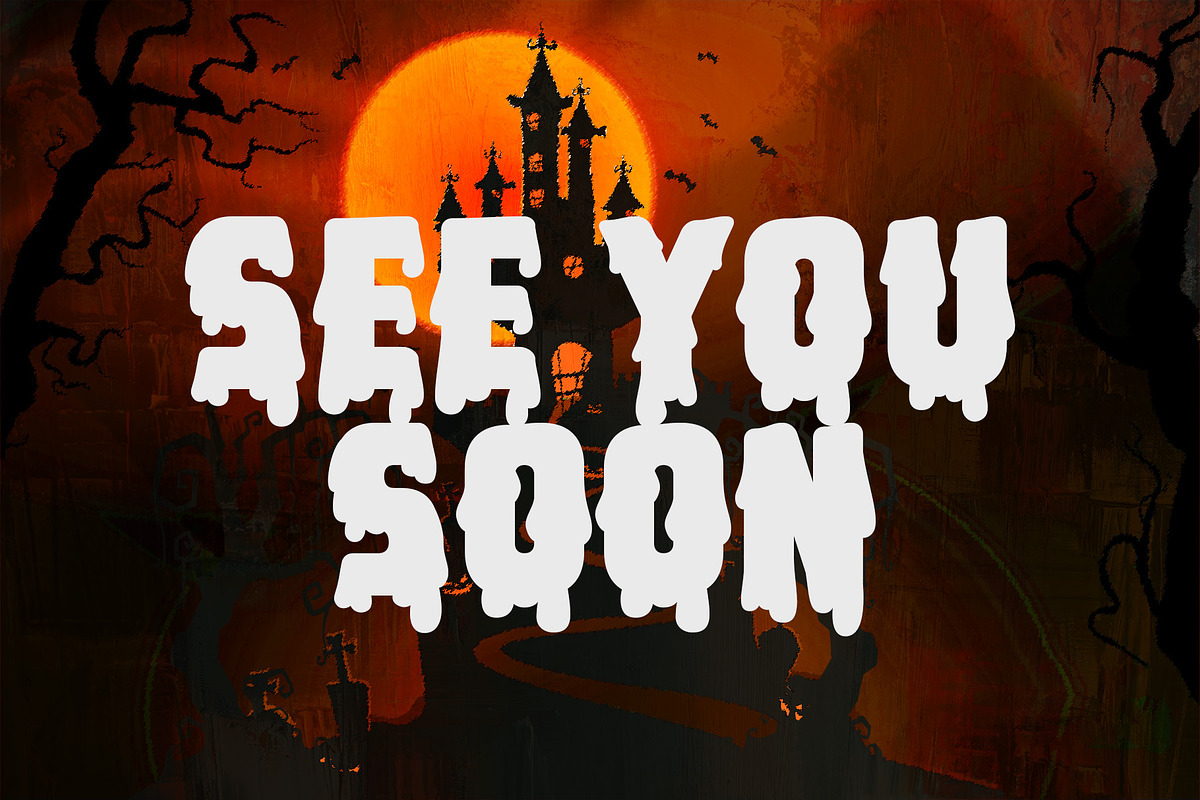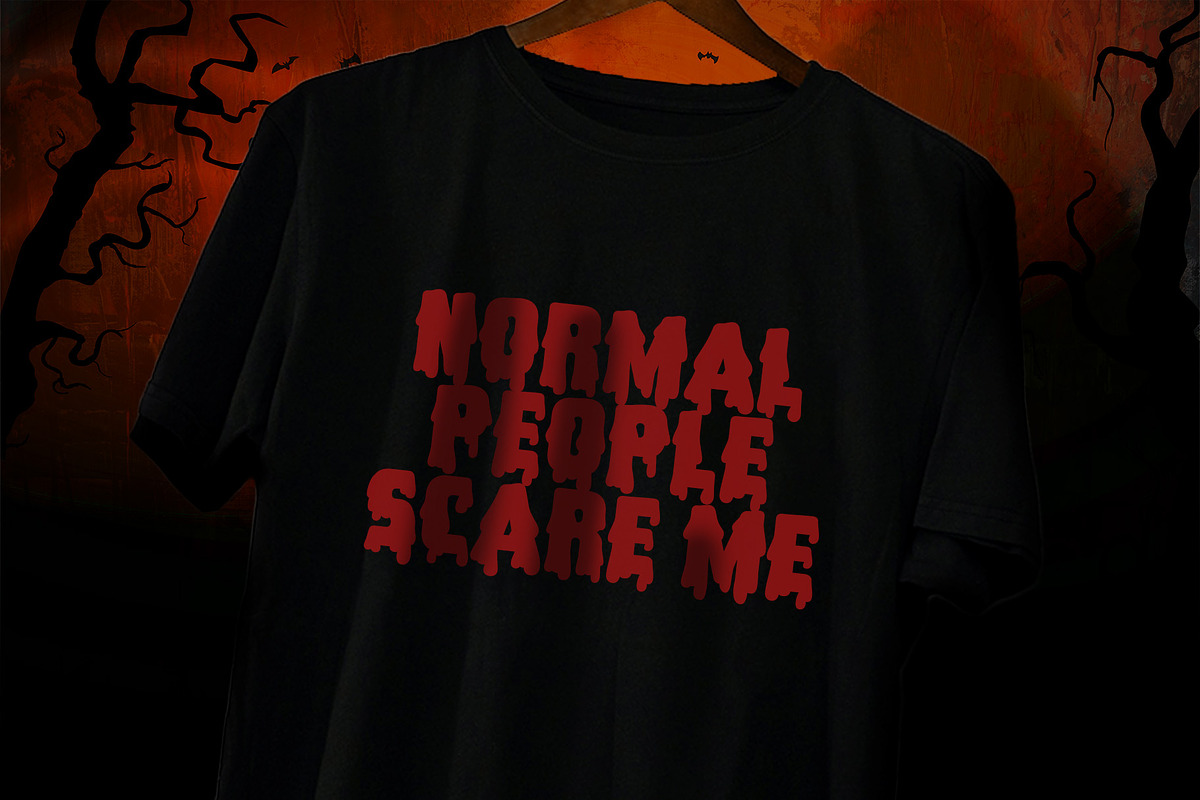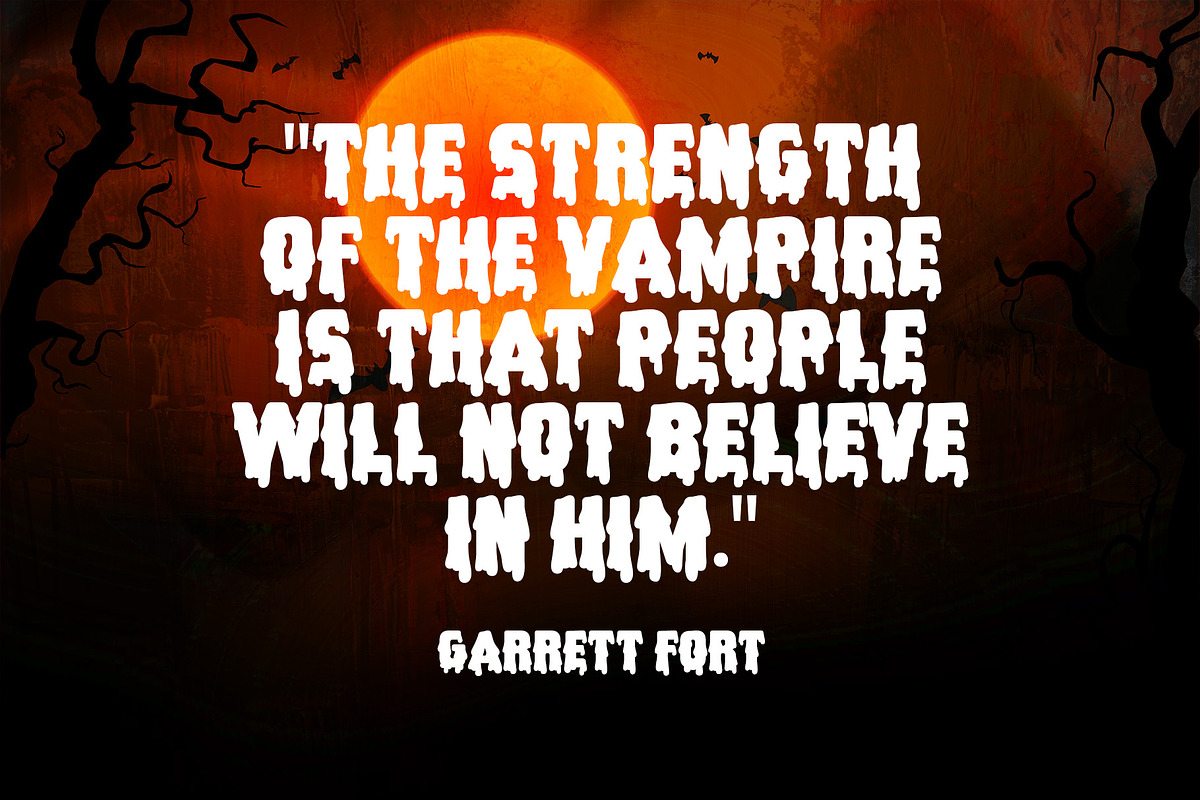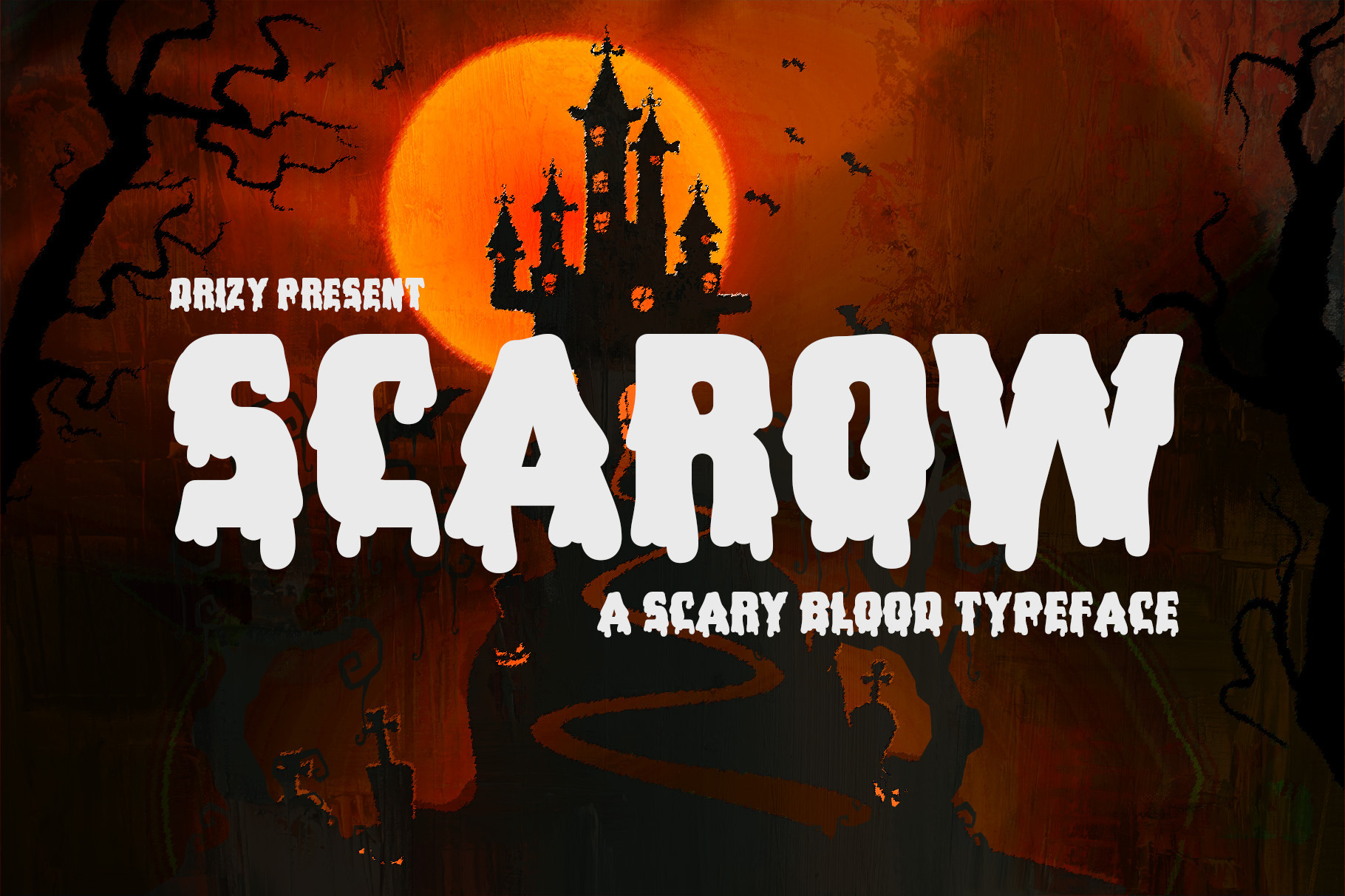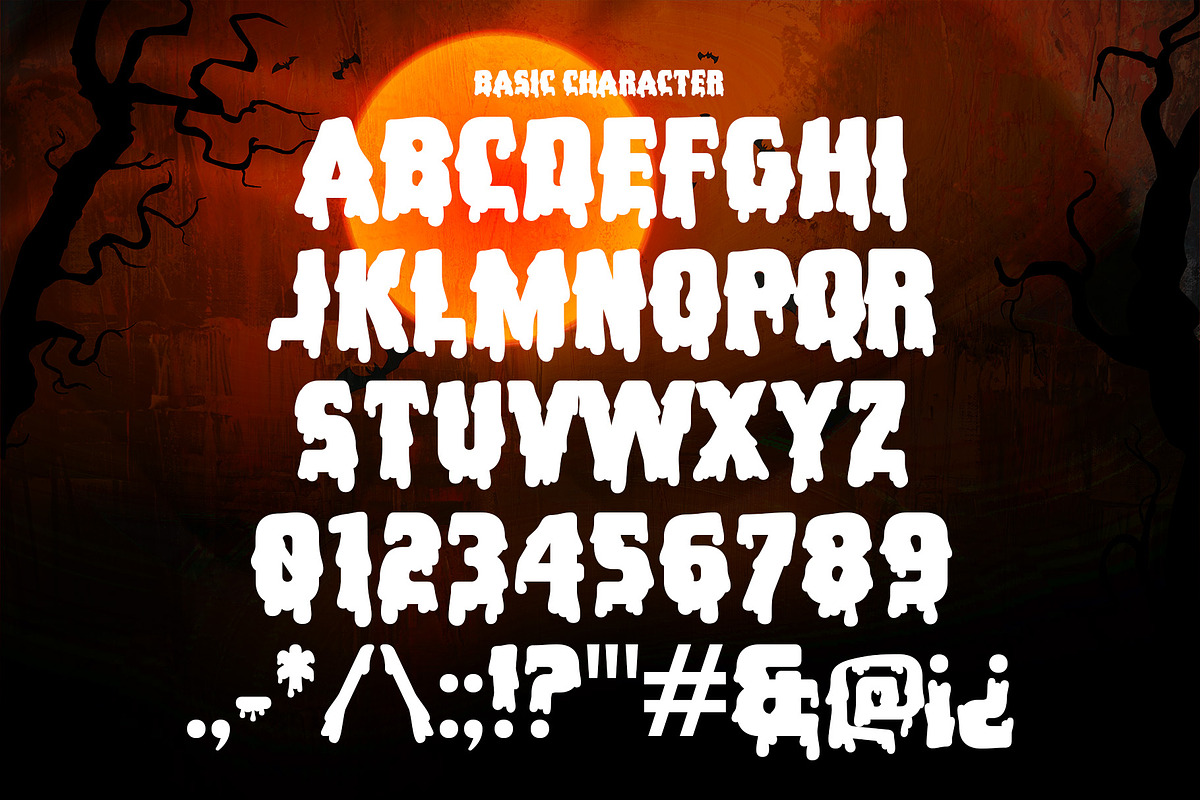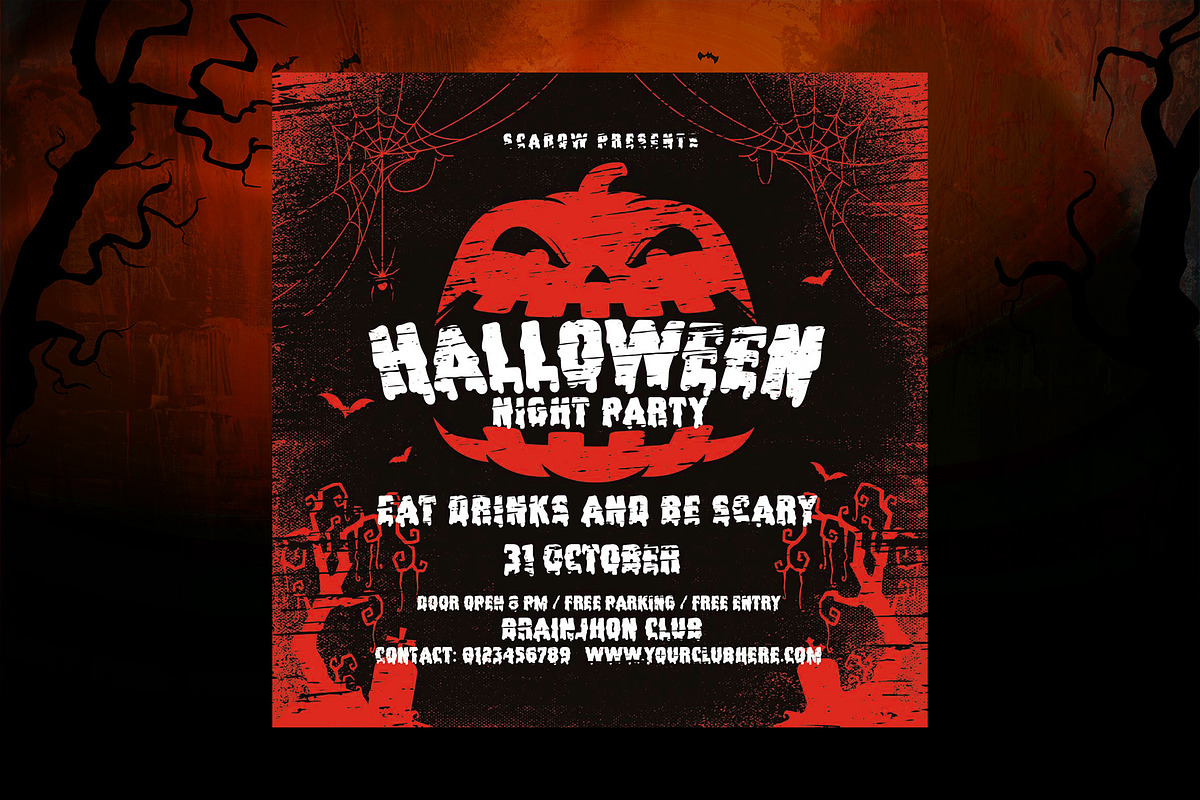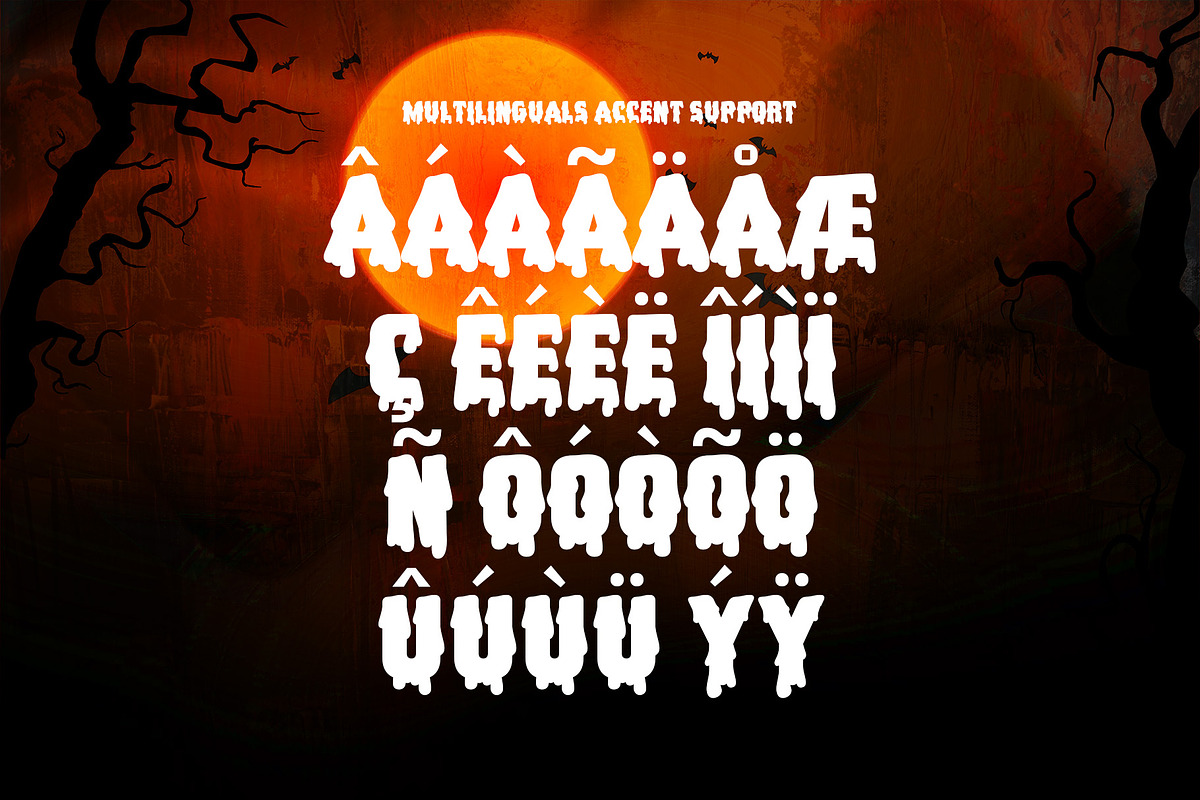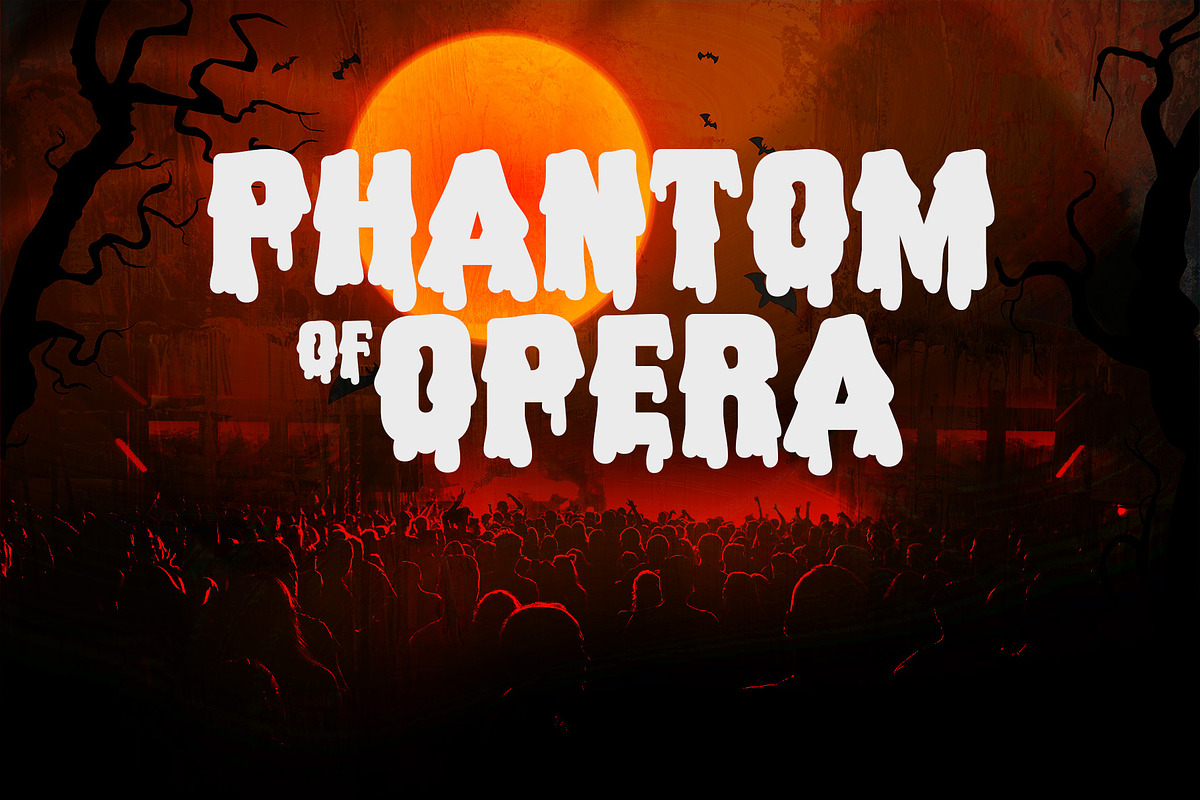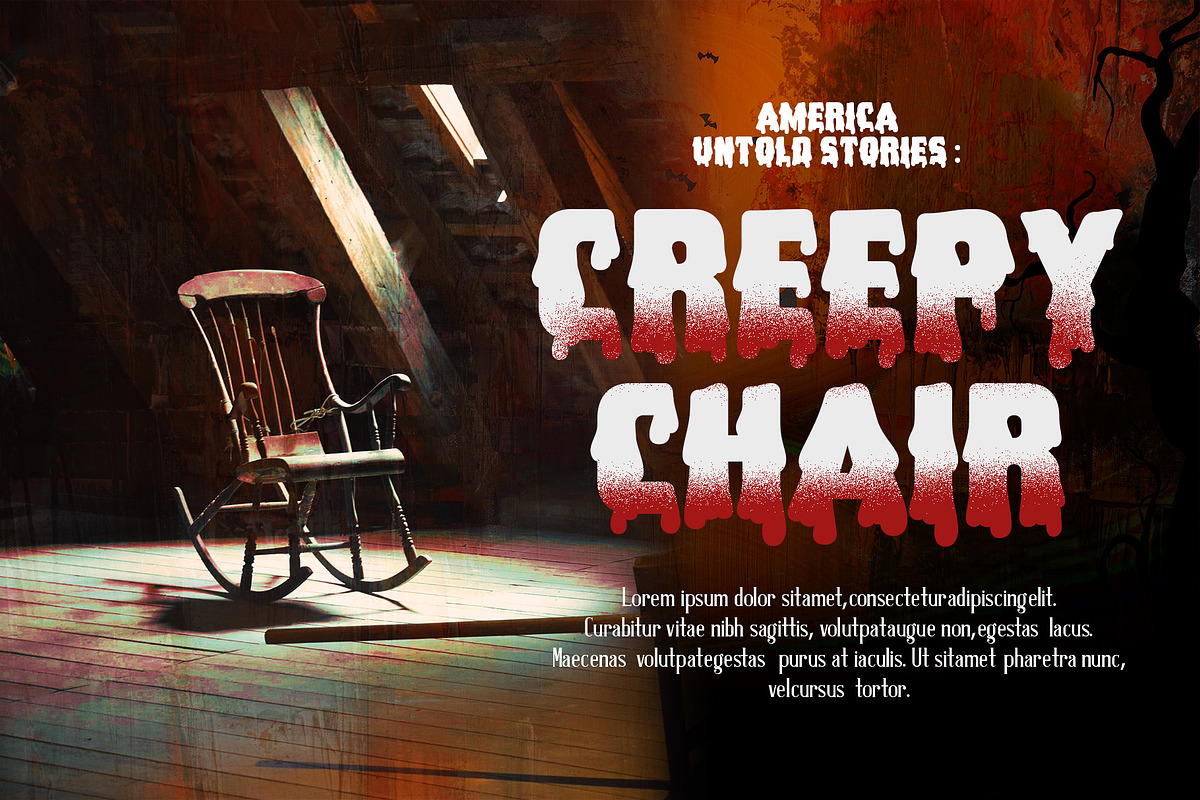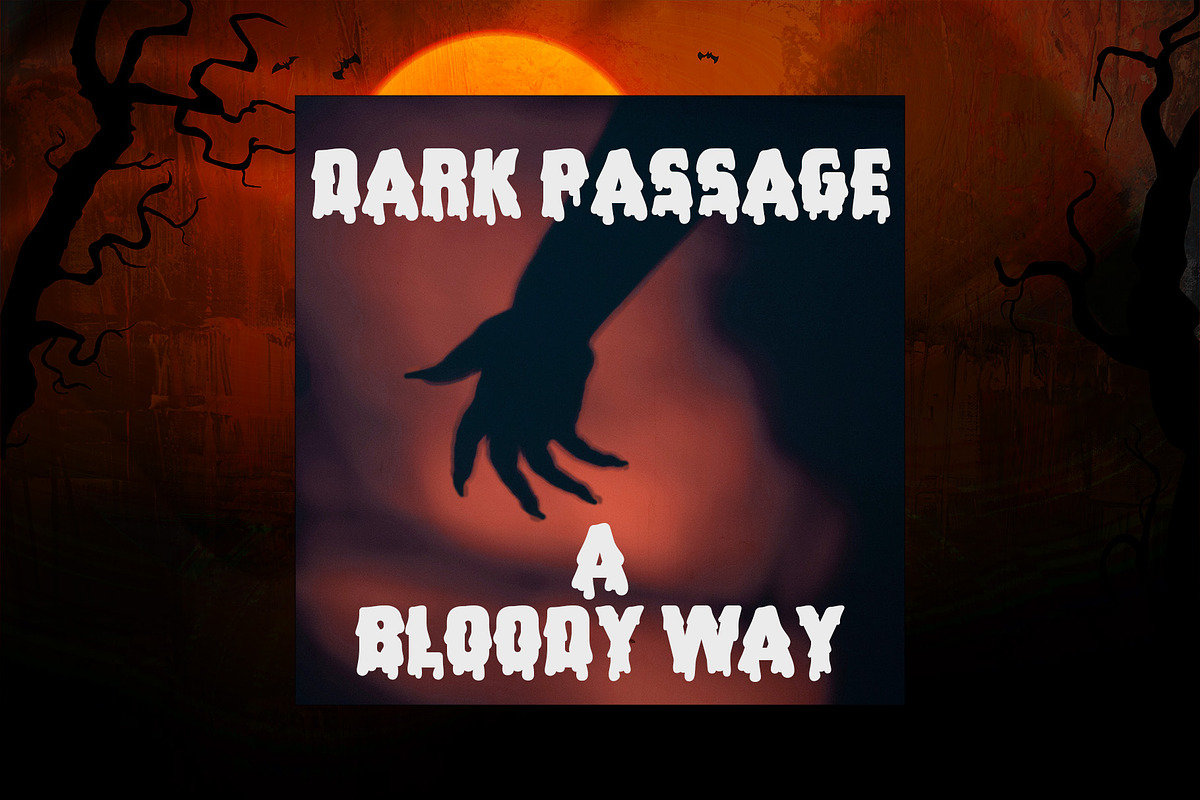
Scarow - Blood Dripping Font
Introducing Scarow! a scary blood dripping font from Drizy! It’s suitable for scary and halloween theme of your project.
Scarow Features: Uppercase Numeral & Punctuations Multilingual